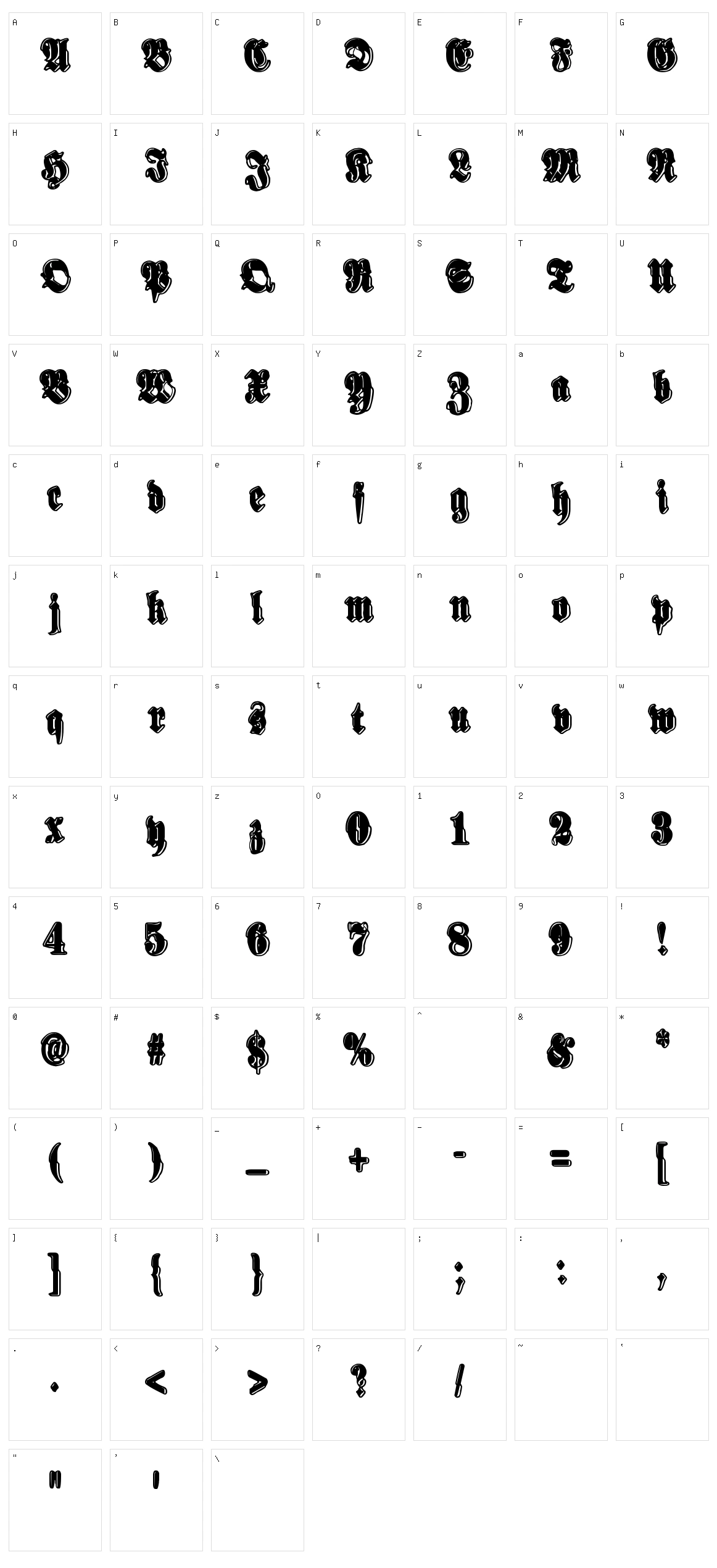
The free font Sinisenharmaa Perkele is carefully designed by junkohanhero, showcasing a thoughtful balance of creativity and usability and belongs to the Gothic font family. When you download the ZIP file, it contains only 31.63 KB of font files, making it lightweight and quick to download. Please review the license details below to understand permitted usage and distribution rights. If license information is not available, we recommend using this font for personal projects only or contacting the author directly for commercial usage permissions.